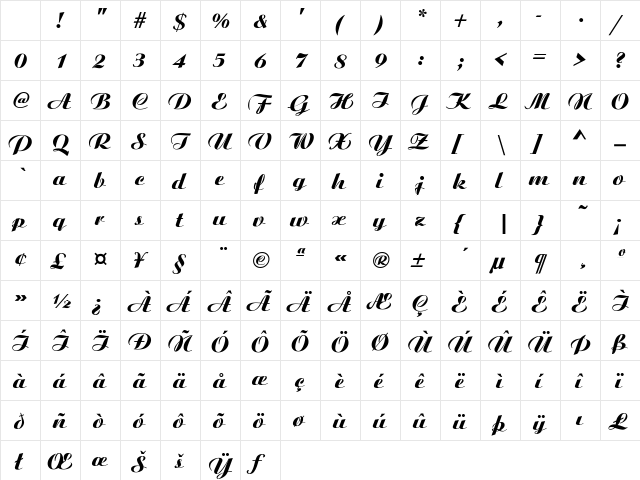
Ariston-Normal-Italic Regular Free Font
Design Context for Ariston-Normal-Italic
Ariston-Normal-Italic is a composed and adaptable typeface that performs quietly and consistently across a wide range of design contexts. The slanted form adds forward momentum and visual energy.
Pro Tip: Use Ariston-Normal-Italic for emphasis, pull quotes, and subheadings where its slanted energy can add rhythm to the layout.